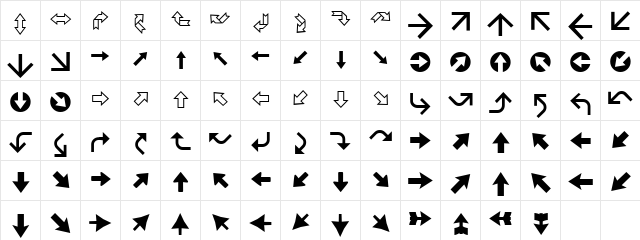
XIngyArrowsBetween Regular Font Preview
XIngyArrowsBetween Regular
XIngyArrowsBetween Regular Font Details
Design Context for XIngyArrowsBetween Typeface
XIngyArrowsBetween takes a measured approach to typography — its balanced proportions and neutral character make it a reliable workhorse for both digital and print work.